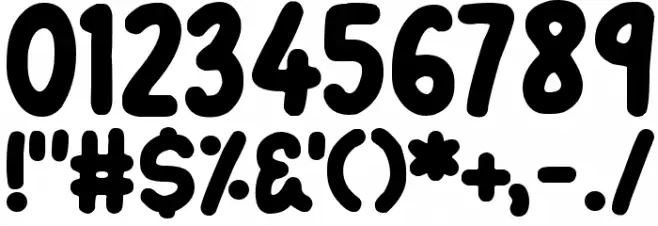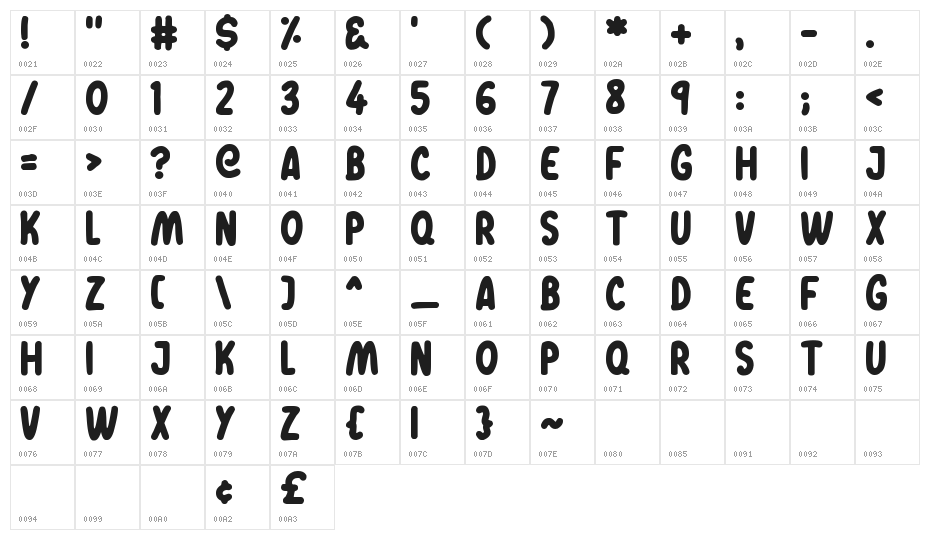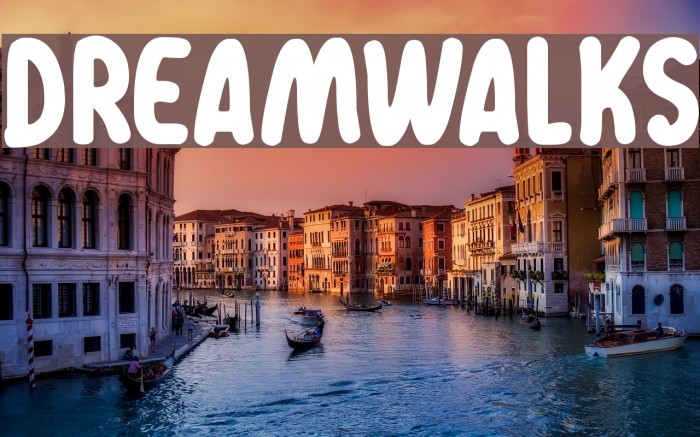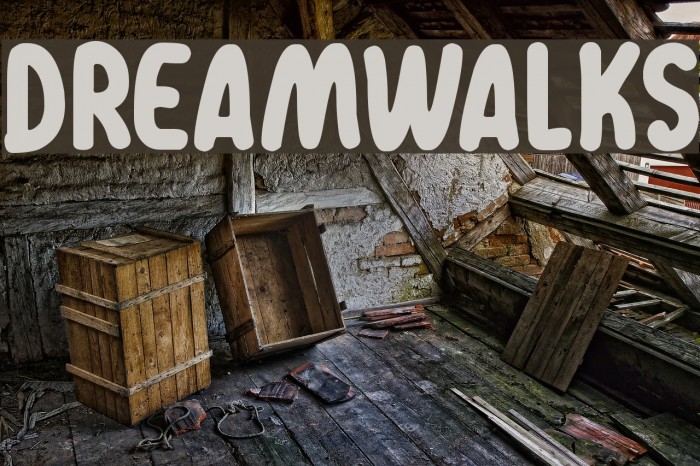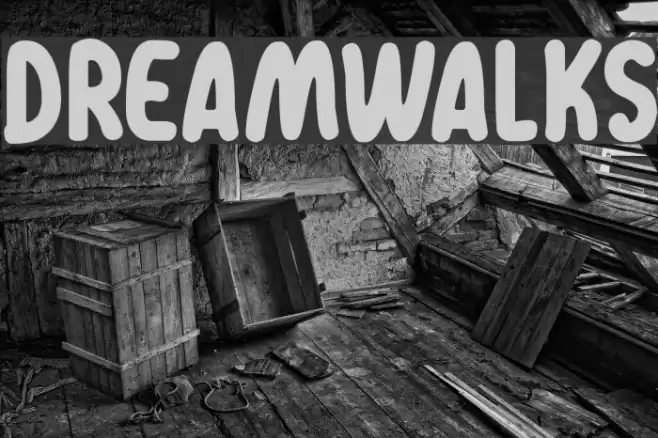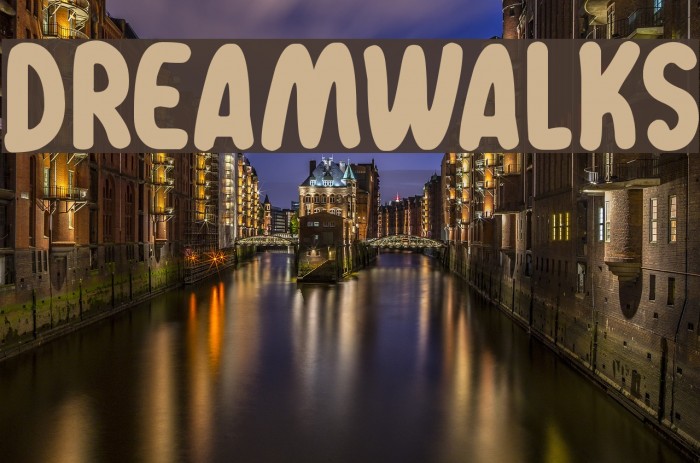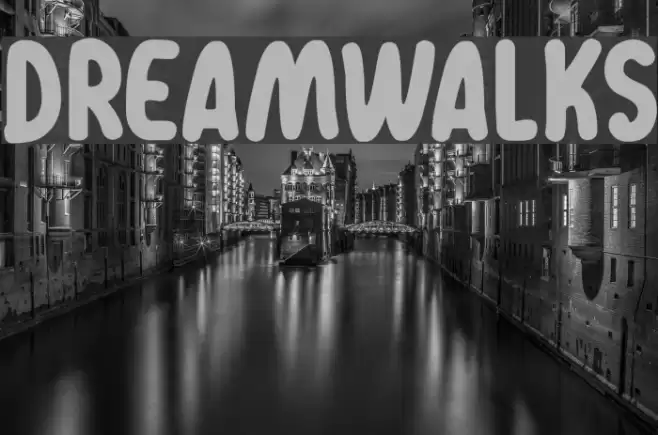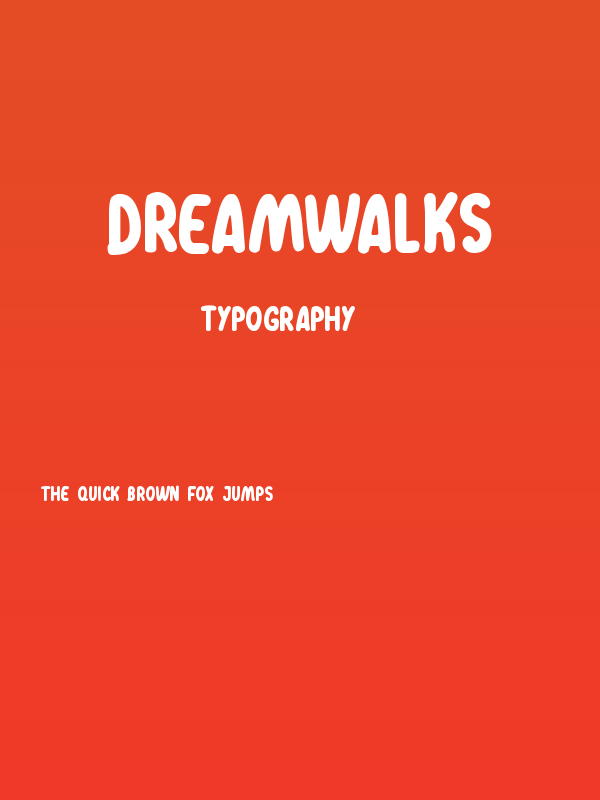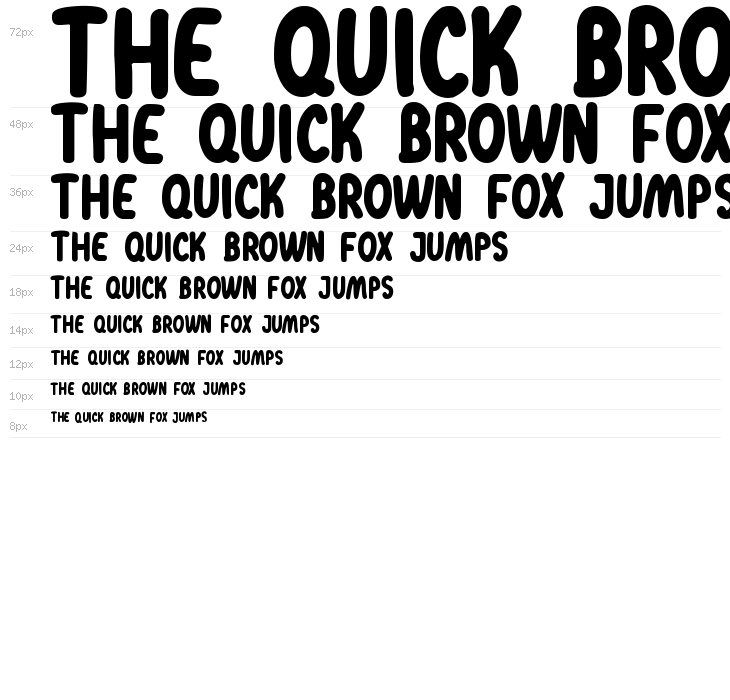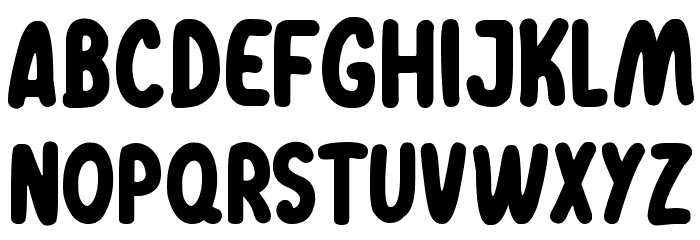
Dreamwalks Font
Dreamwalks Description
This playful and bold font features rounded, thick strokes that give it a friendly and approachable appearance. The characters are uniformly wide, with a slightly condensed form that maintains readability while adding a touch of whimsy. The font's smooth curves and lack of sharp edges contribute to its casual and informal style, making it ideal for projects that require a fun and engaging look. Its consistent weight across all characters ensures a balanced and cohesive visual impact.